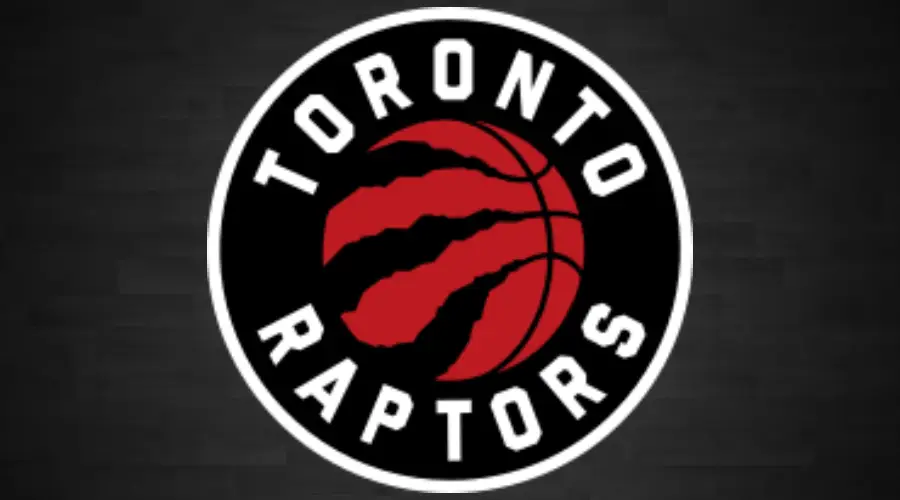
The Toronto Raptors Font is a distinctive typeface closely associated with the NBA team, the Toronto Raptors. It is widely recognized for its bold, sporty, and dynamic design, perfectly capturing the energy and spirit of basketball. While the official font used in the Toronto Raptors logo is custom-made, several similar fonts are available for design purposes.
Millionaire by Paperstreet β This is the most similar font to the one used in the Toronto Raptors logo.
Basketball by Akhmad Afandhi Design β A sporty and bold font that mirrors the style of the Raptorsβ typeface.
Racer by fgstudios β Another excellent alternative with a sleek and modern design.
These fonts are ideal for creating designs inspired by the Toronto Raptors brand or for sports-related projects.